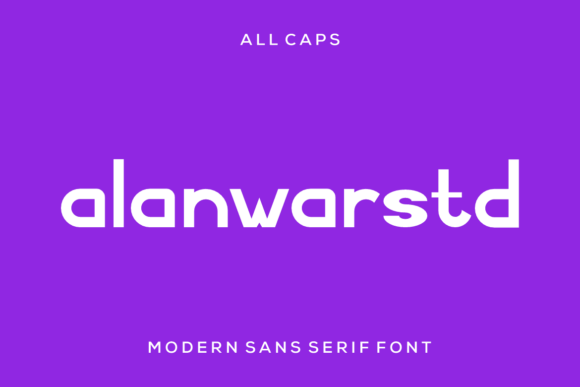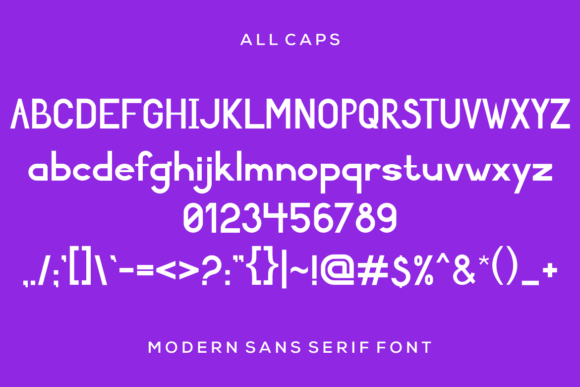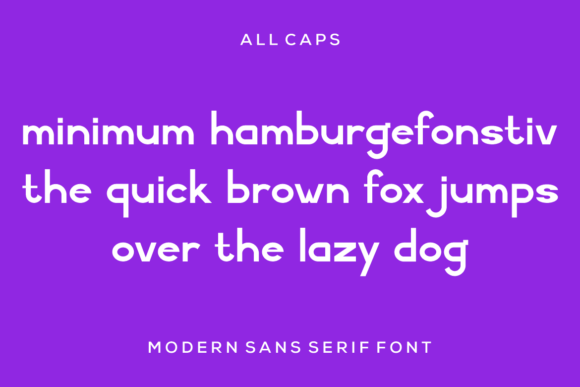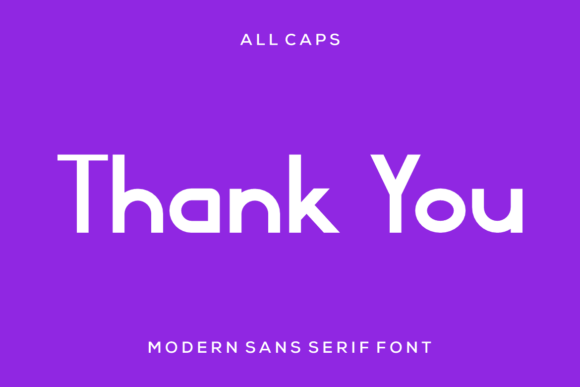
Introduction to Gogon Font
Have you ever found yourself stuck in front of a blank design canvas, struggling to convey the perfect message to your audience? You know, that moment when you wish you had a secret design superpower to make your project truly stand out? Well, we’re here to share that secret with you – and it’s called the Gogon Font.
This modern sans serif font is more than just a design tool; it’s a game-changer for any creative project. Its high-quality, versatile design makes it perfect for attention-grabbing headlines, logos, and a wide range of design projects. Whether you’re working on a digital or print project, Gogon Font adds a dynamic touch that’s sure to elevate your message.
Key Features of Gogon Font
- The Gogon Font is a high-quality design resource ideal for creative projects, offering a unique and modern style.
- The font includes a range of characters, including uppercase and lowercase letters, numbers, and punctuation marks.
- The font family includes multiple weights, from light to bold, providing flexibility for designers to achieve the desired visual effect.
Honest Review: Gogon Font
I recently had the chance to work with the Gogon Font, and I must say it’s been a great experience. As a designer, I’m always on the lookout for high-quality fonts that can elevate my creative projects.
- ✨ Unique style: The Gogon Font has a distinctive, futuristic feel that sets it apart from more traditional fonts. I loved using it to add a touch of edginess to my design.
- ✨ Versatility: This font is incredibly versatile, working well in a variety of design contexts, from logos to digital graphics.
- ⚠️ Limited character set: The Gogon Font has a relatively small character set, which may limit its use in certain design projects.
Overall, I’m impressed with the Gogon Font. While it may have some limitations, its unique style and versatility make it a valuable design resource. I’d definitely recommend it to designers looking for a high-quality font to add some creativity to their projects.
Using Gogon Font in Design Projects
Common Use Cases for Gogon Font
The Gogon Font is particularly useful for creating eye-catching headings, titles, and logos. It’s also a great choice for creating engaging social media graphics, flyers, and brochures.